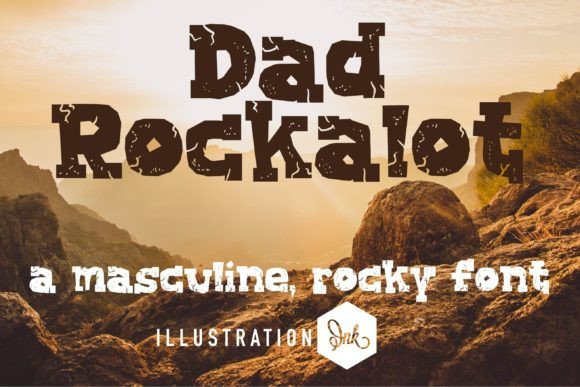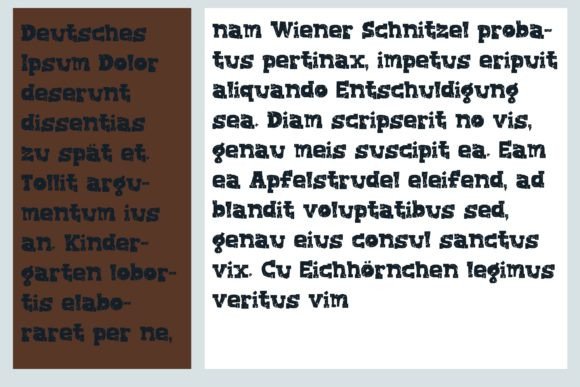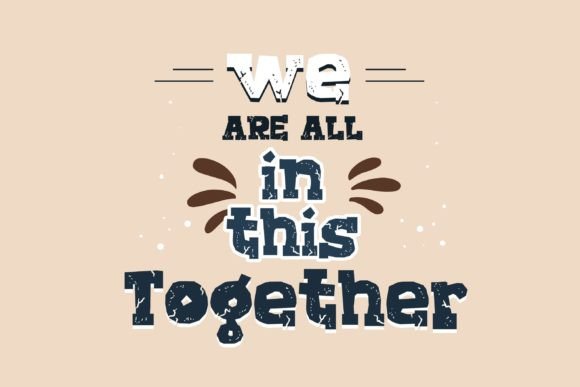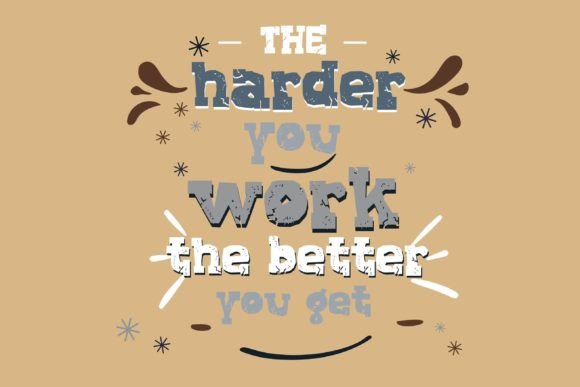
Dad Rockalot Font: A Sturdy Display Font for Vintage Branding
About the Dad Rockalot Font
The wait is over! The incredible Dad Rockalot Font is now available for your design toolkit. Dad Rockalot is a friendly font that looks strong and sturdy, like building blocks. It has little feet on the bottom of the letters and small decorative lines at the ends, giving it a classic and reliable feel. Perfect for projects that need a touch of tradition and stability.
Dad Rockalot excels in headlines, logos, and short-form text applications like posters or packaging. Its sturdy design commands attention without overwhelming the viewer. Avoid using it for large blocks of body text or UI elements; the decorative details might become visually distracting at smaller sizes.
The font’s friendly yet strong personality pairs well with clean sans-serif fonts like Open Sans for body copy, balancing its classic feel with contemporary readability. For a more playful effect, consider pairing it with a rounded geometric sans-serif. A script font could add a touch of vintage charm to projects requiring a handwritten feel.
Dad Rockalot’s overall personality is best described as robust and approachable. It’s ideal for brands that project a sense of reliability and timelessness, but with a subtle, friendly edge. Think craft breweries, vintage clothing lines, or artisan food products.
Dad Rockalot Font Example